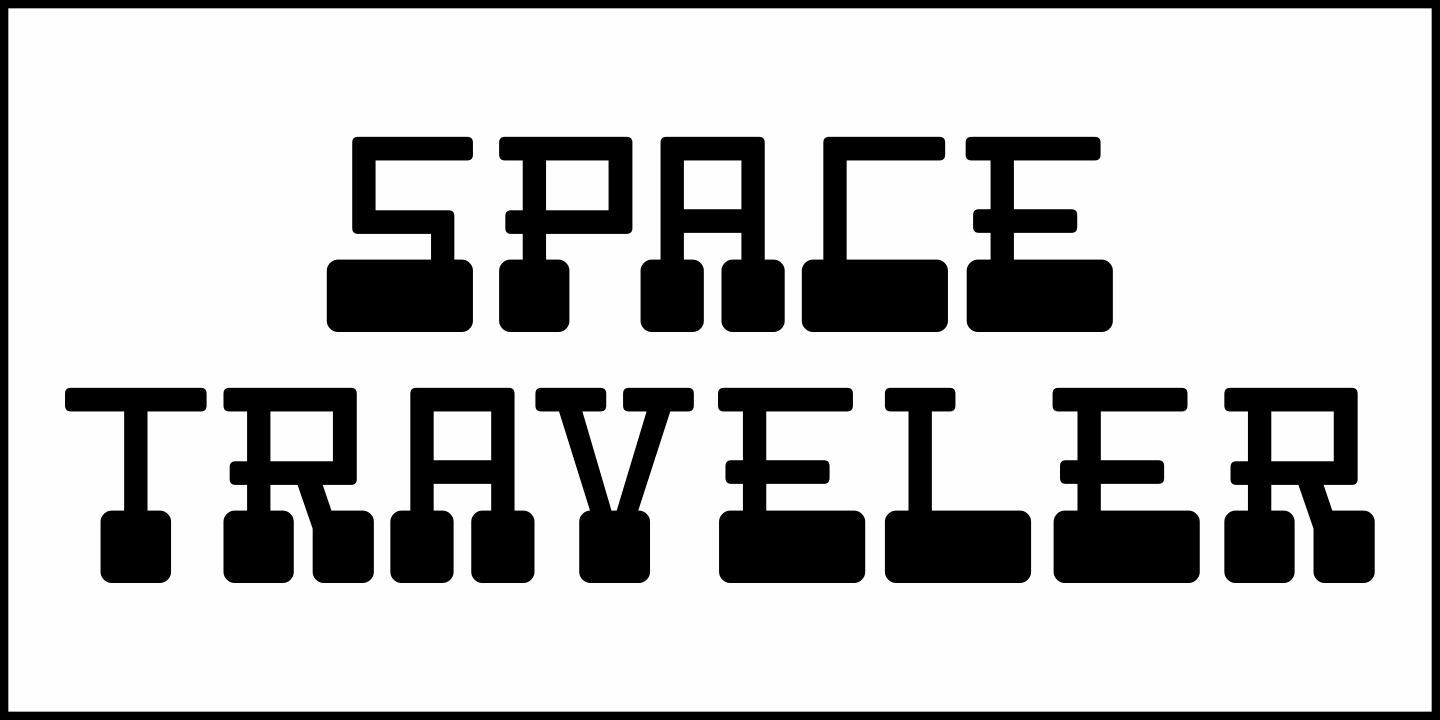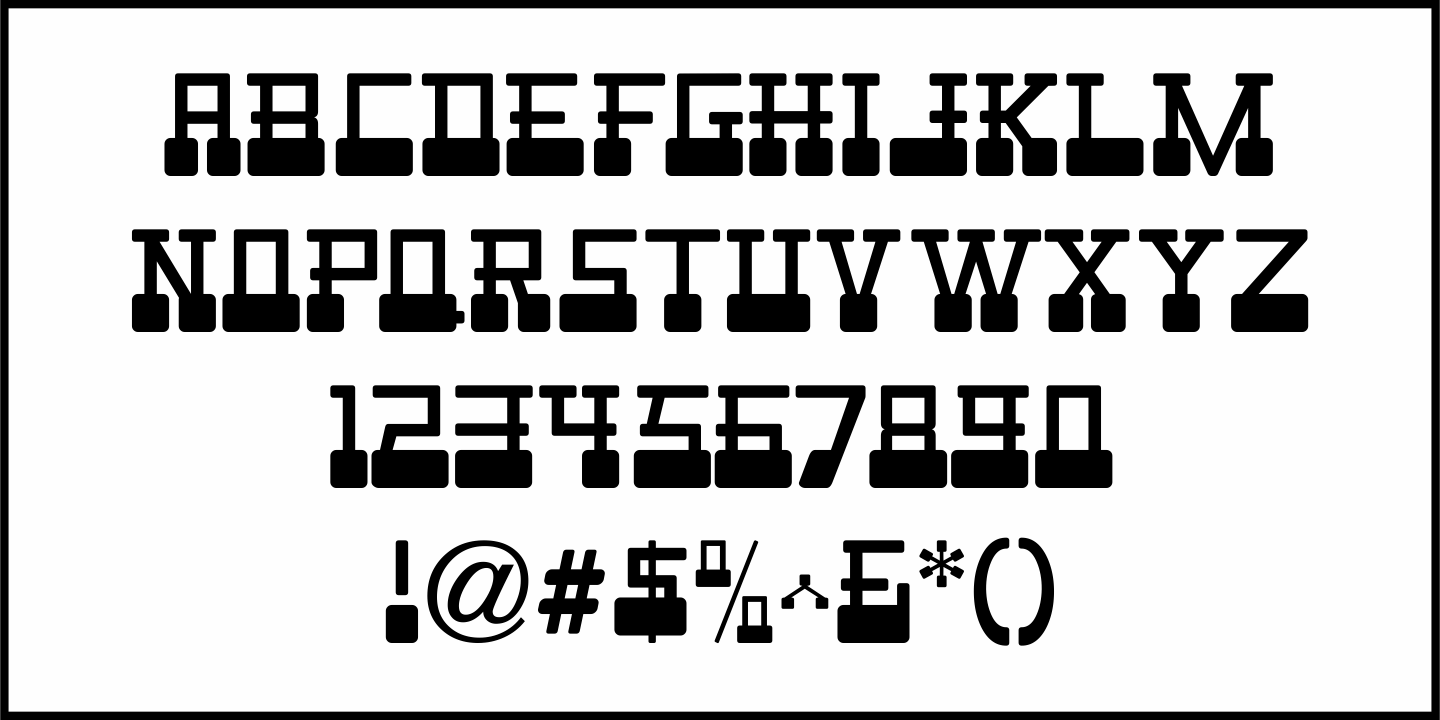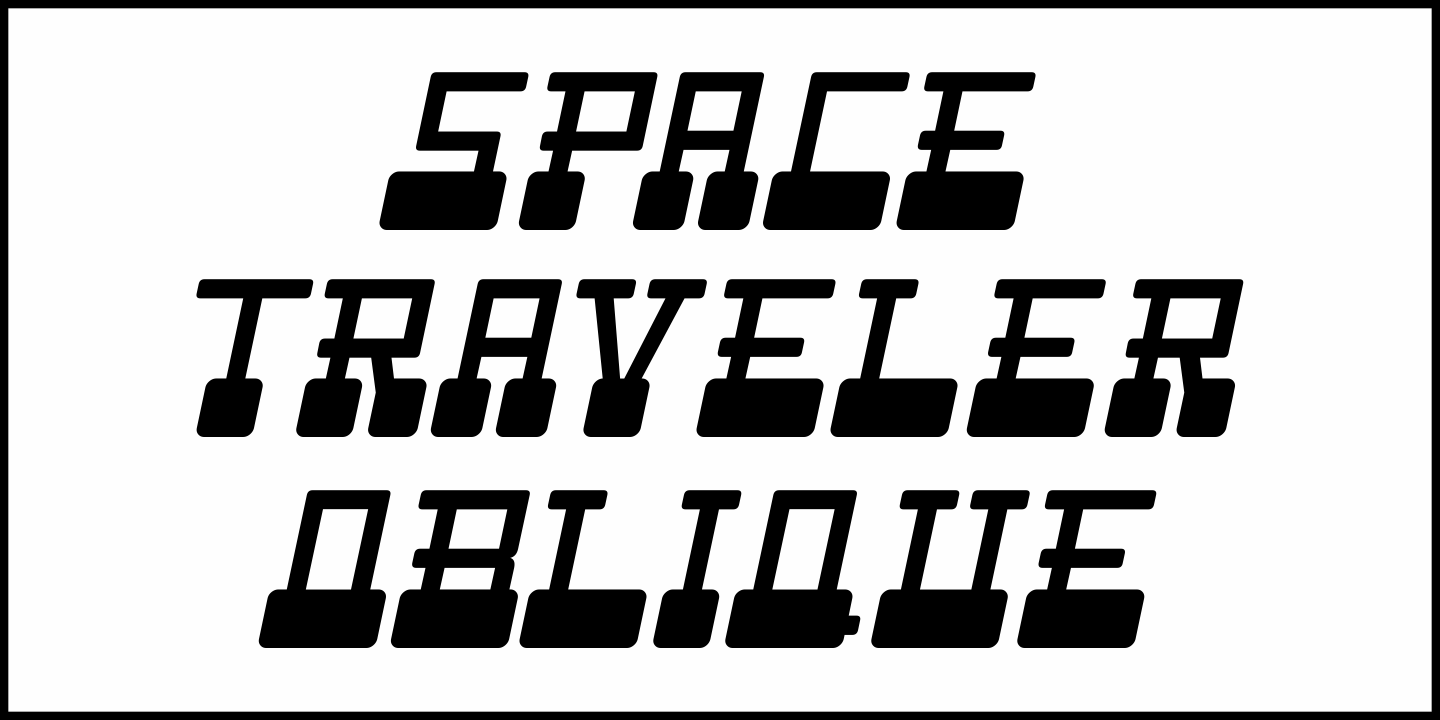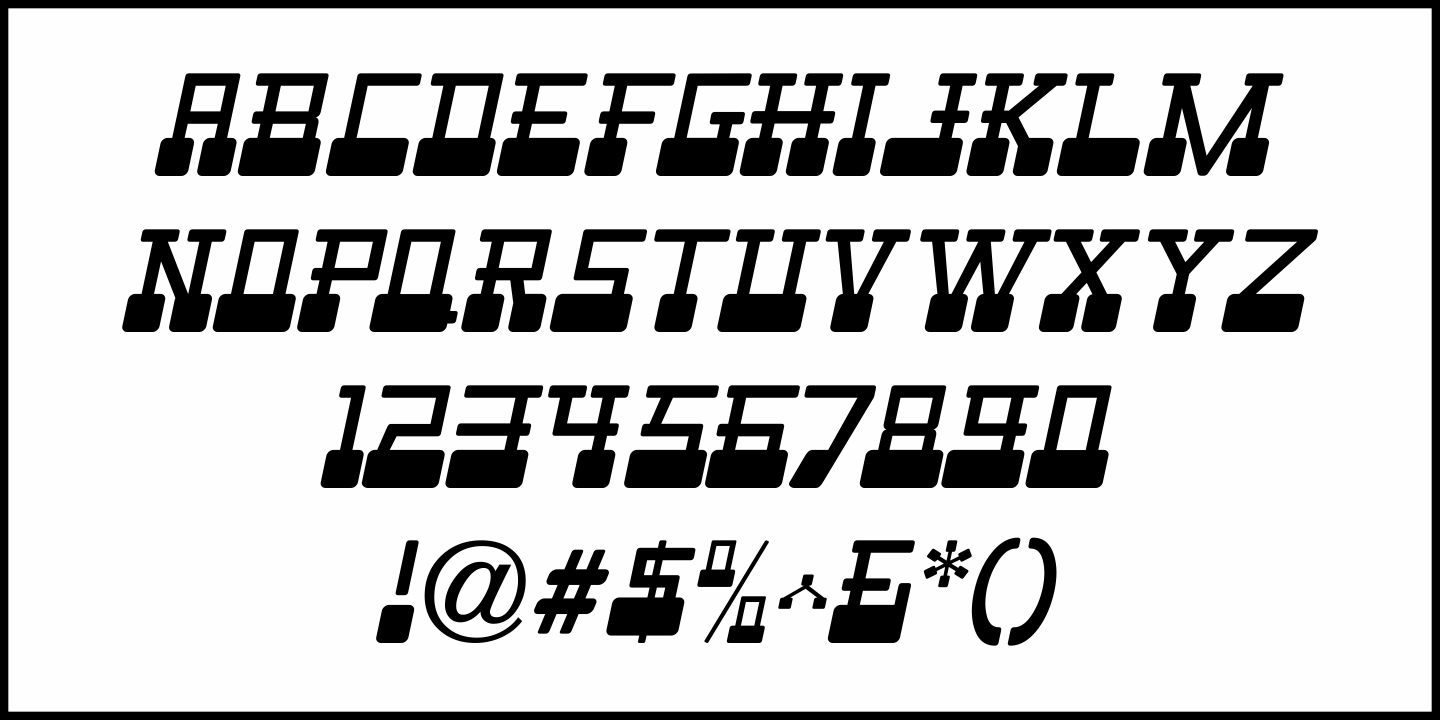
Space Traveler
The 1990s was a time of creativity, experimentation and exploration into the world of digital typography by amateur and professional alike.
Ray Larabie [through his Larabie Fonts] offered dozens upon dozens of wide-ranging (and often most unusual) freeware fonts. Ray was the driving force of encouragement and a behind-the-scenes “mentor” who helped Jeff Levine Fonts get underway in January of 2006.
As his focus changed to high-quality commercial type with the launch of Typodermic, Inc., many of Ray’s “less than perfect” font experiments were withdrawn. He eventually turned those typefaces into a bundled zip archive released into the public domain through Creative Commons.
“Webster World” resembles a fusion of Techno and Western styles. With Ray's permission, the original characters have been cleaned up and re-made as Space Traveler JNL, which is available in both regular and oblique versions.